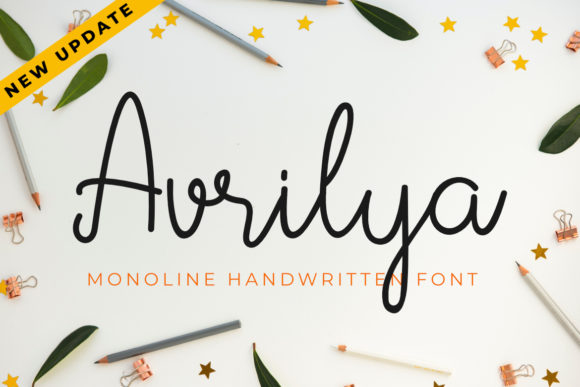
Dive into the world of Avrilya, a modern and unique script font that exudes elegance and charm. Crafted with meticulous attention to detail by the talented Madatype Studio, Avrilya is a feast for the eyes, transforming every design project into a masterpiece.
With its graceful curves and enchanting swashes, Avrilya effortlessly adds a touch of sophistication and individuality to your creations. Whether you're designing wedding invitations, branding materials, or social media posts, Avrilya will elevate your designs to new heights.
Let your imagination soar as you explore the endless possibilities of Avrilya. Its versatility knows no bounds, making it perfect for a wide range of projects, from whimsical invitations to heartfelt letters.
Experience the magic of Avrilya today and embark on a creative journey that will leave you breathless. Unleash the power of this extraordinary font and watch your designs come to life with captivating beauty.